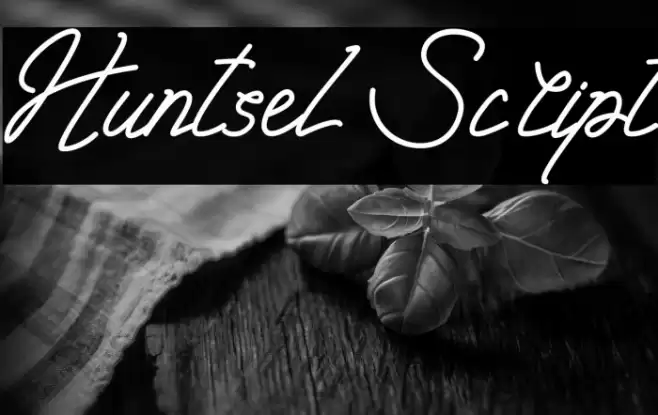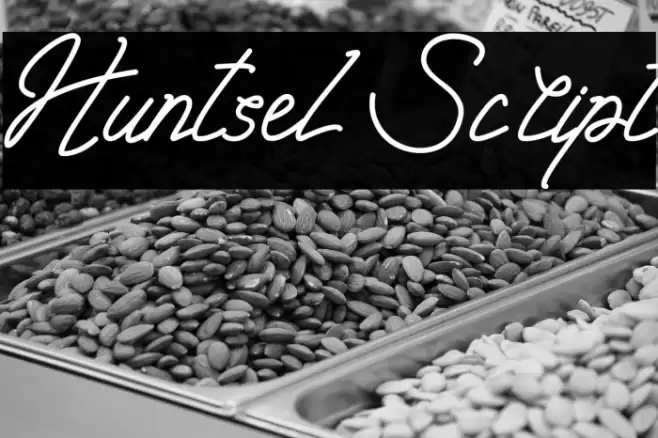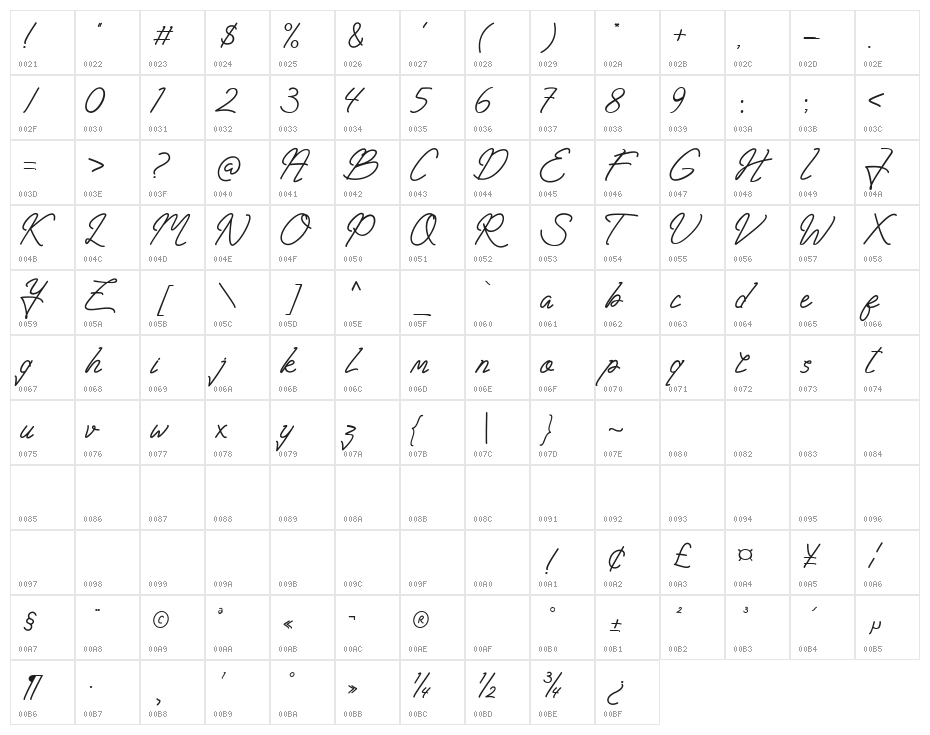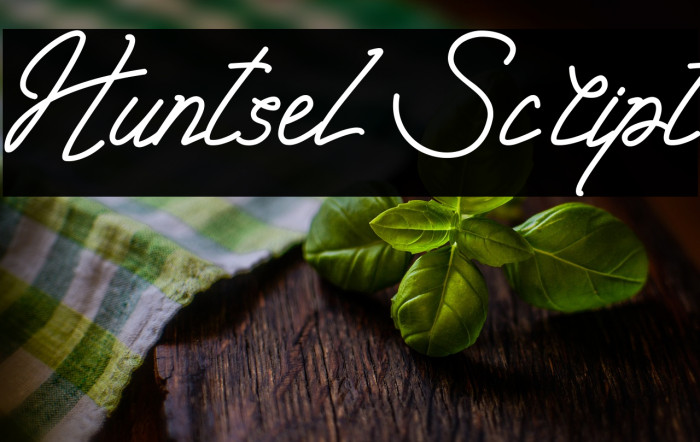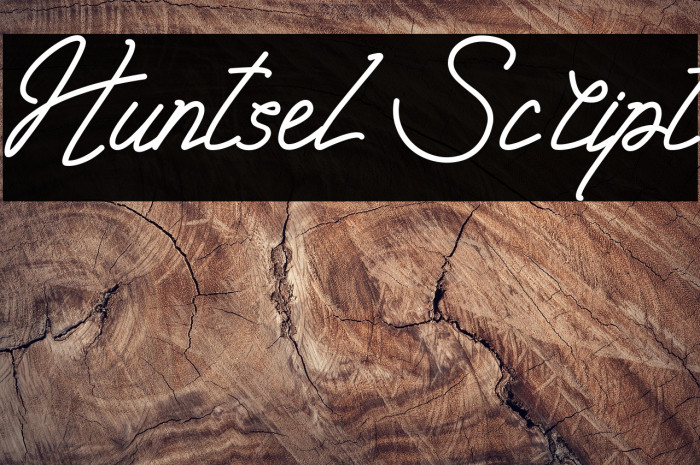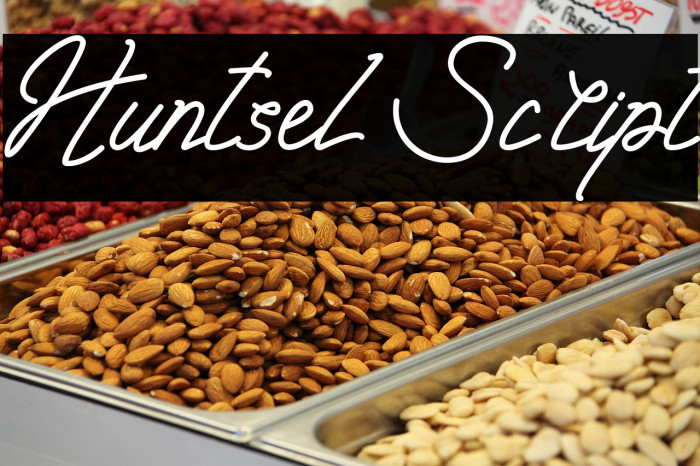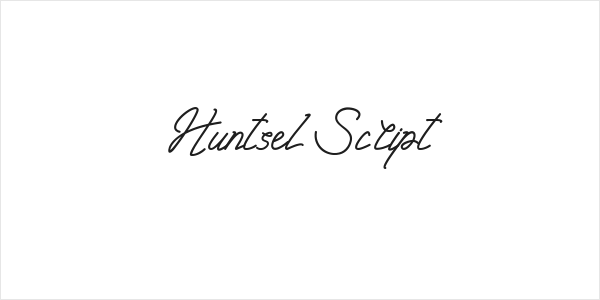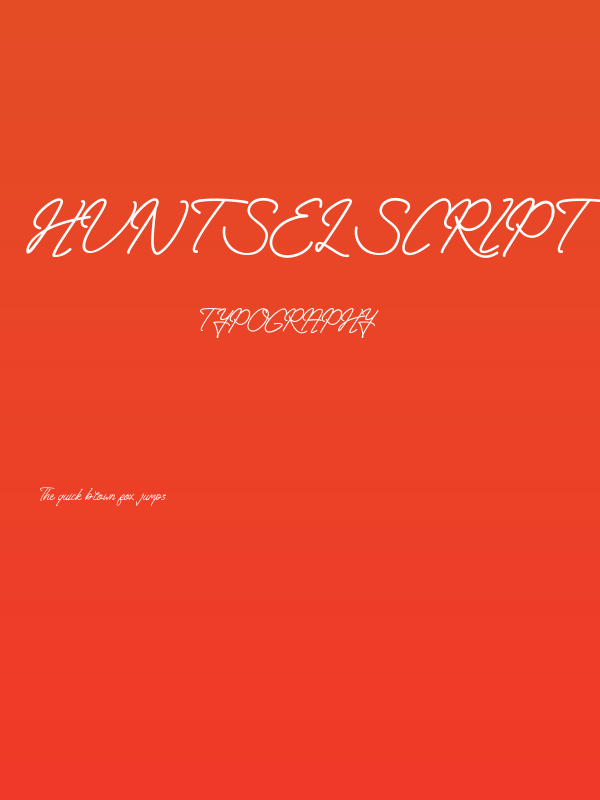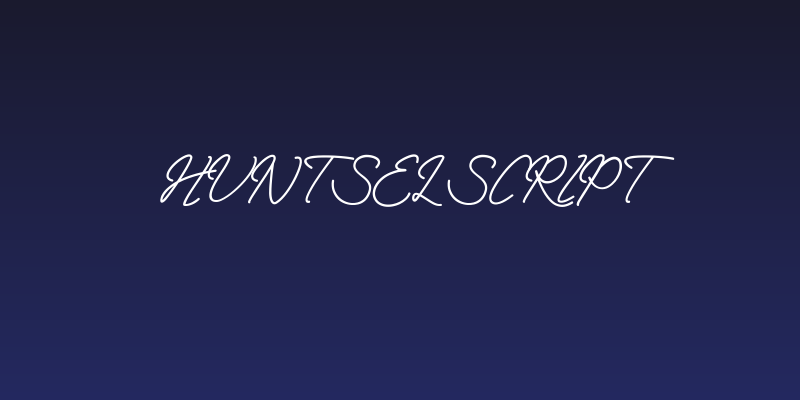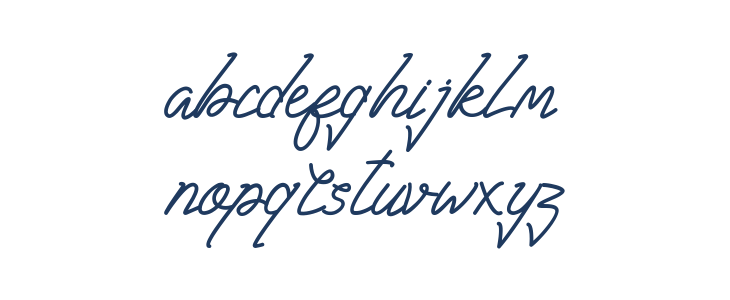
Huntsel Script Font
Huntsel Script Description
This elegant script font features fluid, connected strokes that mimic the natural flow of handwriting. The uppercase letters are slightly more elaborate, with graceful loops and curves, while the lowercase letters maintain a consistent, flowing style. The numerals are clear and legible, complementing the overall aesthetic. Special characters are thoughtfully designed to match the script's fluidity, making it versatile for various uses. The font's smooth, cursive style exudes a sense of sophistication and charm, ideal for projects that require a personal touch.
A fluid, elegant script font with connected strokes and a handwritten feel from Regular fonts.
- Proposed Projects: Ideal for wedding invitations, greeting cards, personal branding, and elegant packaging designs.
- Overall Style: Elegant, Handwritten
- Use Case: Logos, Invitations, Personal Branding